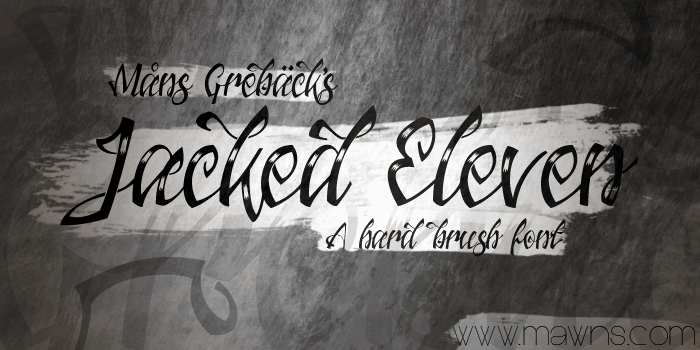
Free Jacked Eleven Highlight Font
Today we're glad to feature this free jacked eleven highlight font. Font Space has created this amazing and beautiful typeface. This is absolutely fancy font so you can easily make world-class designs.